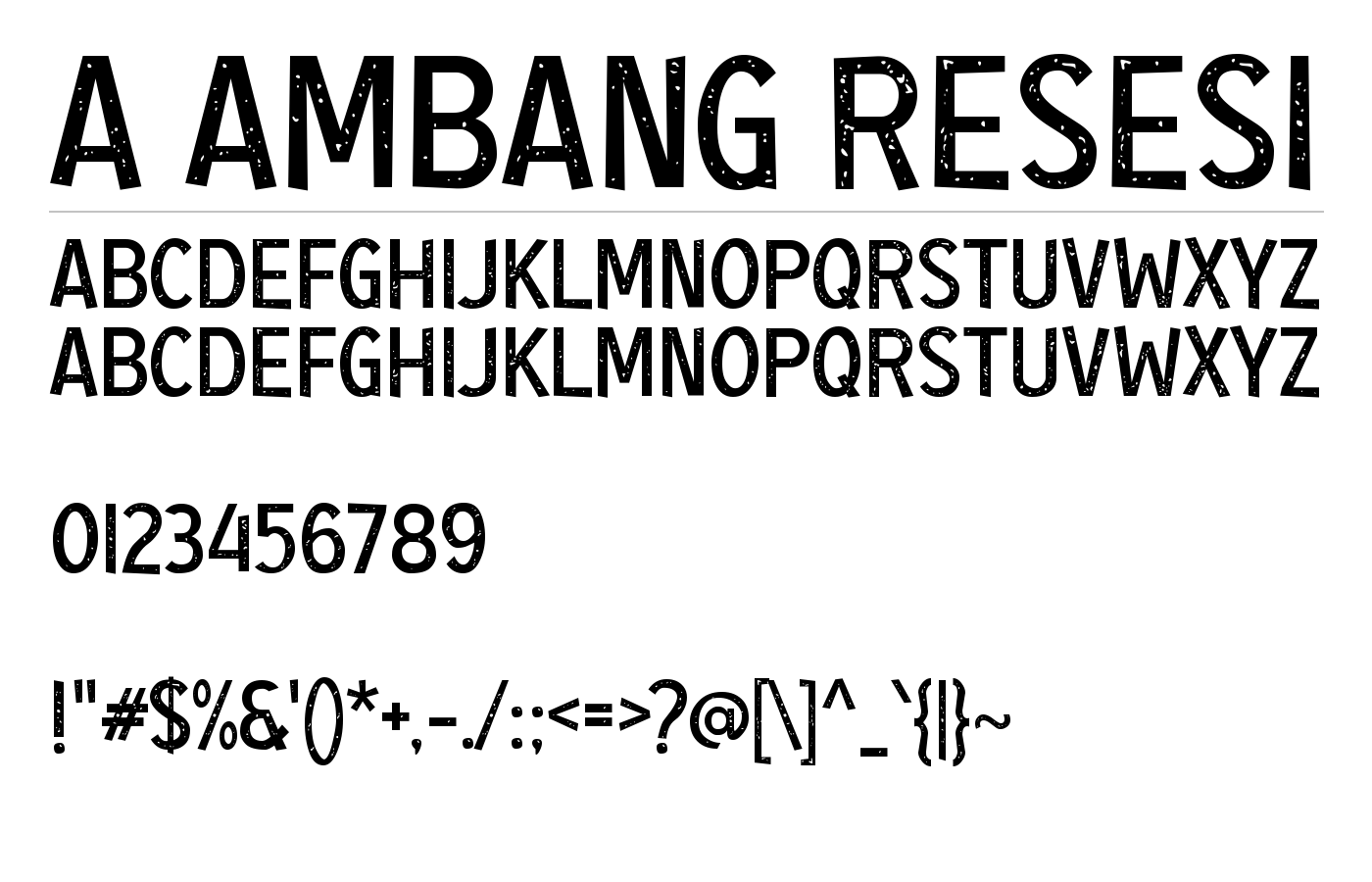
Ambang Resesi is a distinctive sans serif font with a slightly condensed width and medium weight, featuring a playful, gritty texture that adds character and a casual vibe. Its tall, narrow letterforms with minimal contrast and single-story details give it a modern yet handmade feel, making it perfect for creative headlines, posters, and branding that seeks an approachable, energetic personality. This font works especially well in designs that want to convey authenticity and a bit of rustic charm, standing out with its unique textured style.
a Ambang Resesi Font
About a Ambang Resesi Font